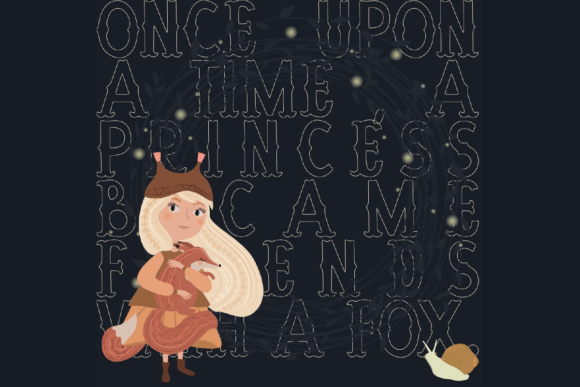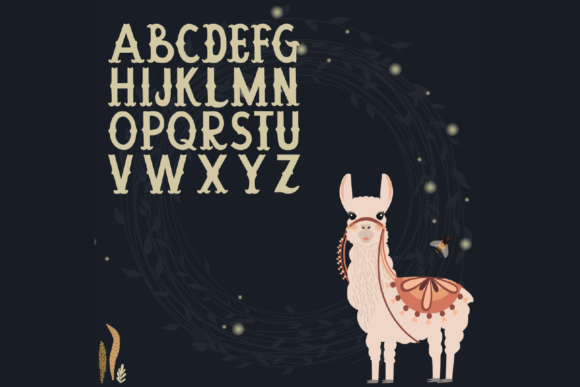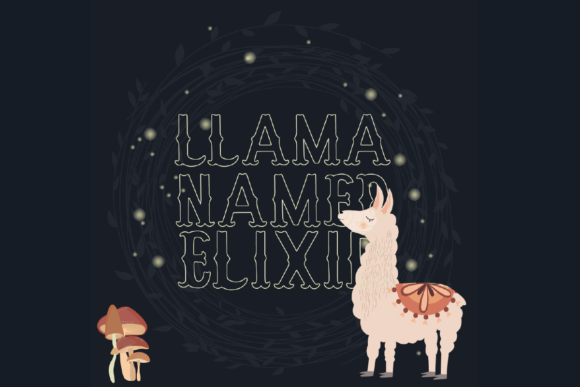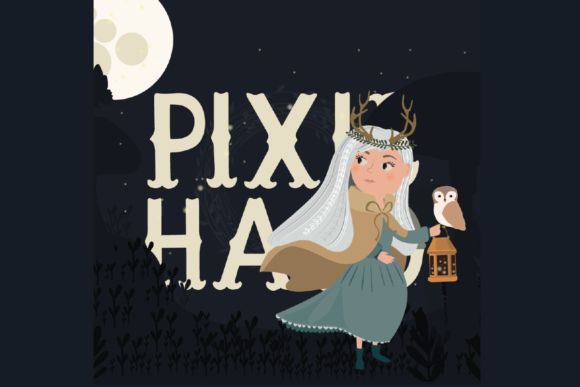
Freak Show Font: A Bold and Unique Display Font for Your Creations
Are you looking for a font that can add a touch of uniqueness and boldness to your designs? Look no further than the Freak Show Font. This display font is imposing, thick, and features uniquely shaped letters that will make your creations stand out from the crowd. In this article, we’ll take a closer look at the Freak Show Font, its features, and how you can use it to elevate your designs.
What is Freak Show Font?
Freak Show Font is a bold and thick lettered display font that is designed to make a statement. Its unique and imposing letter shapes make it perfect for adding a distinct touch to a wide range of creations, from posters and flyers to logos and branding materials. The font’s bold and thick letters are sure to grab attention and leave a lasting impression on your audience.
Features of Freak Show Font
The Freak Show Font has several features that make it a standout font for designers and crafters. Some of its key features include:
- Bold and Thick Letters: The font features bold and thick letters that are sure to grab attention.
- Unique Letter Shapes: The font’s letter shapes are uniquely designed, making it perfect for adding a distinct touch to your creations.
- High-Quality Design: The font is designed with high-quality craftsmanship, ensuring that it looks great in any design.
- Easy to Read: Despite its bold and thick letters, the font is easy to read, making it perfect for use in a wide range of designs.
How to Use Freak Show Font
The Freak Show Font is versatile and can be used in a wide range of designs, including:
- Posters and Flyers: Use the font to create eye-catching posters and flyers that grab attention.
- Logos and Branding Materials: Use the font to create unique and memorable logos and branding materials.
- Social Media Graphics: Use the font to create social media graphics that stand out from the crowd.
- Signage and Displays: Use the font to create eye-catching signage and displays that grab attention.
Tips for Using Freak Show Font
Here are some tips for using the Freak Show Font:
- Use it Sparingly: Use the font sparingly to avoid overwhelming your design.
- Pair it with Other Fonts: Pair the font with other fonts to create a unique and visually appealing design.
- Keep it Simple: Keep your design simple and avoid clutter to ensure that the font stands out.
The Freak Show Font is a bold and unique display font that is perfect for adding a distinct touch to your designs. Its imposing and thick letters, uniquely shaped letter forms, and high-quality design make it a standout font for designers and crafters. With its versatility and ease of use, the Freak Show Font is sure to become a favorite in your design arsenal.
Overall, the Freak Show Font is a great addition to any designer’s or crafter’s font collection. Its unique and bold design makes it perfect for adding a distinct touch to a wide range of creations.